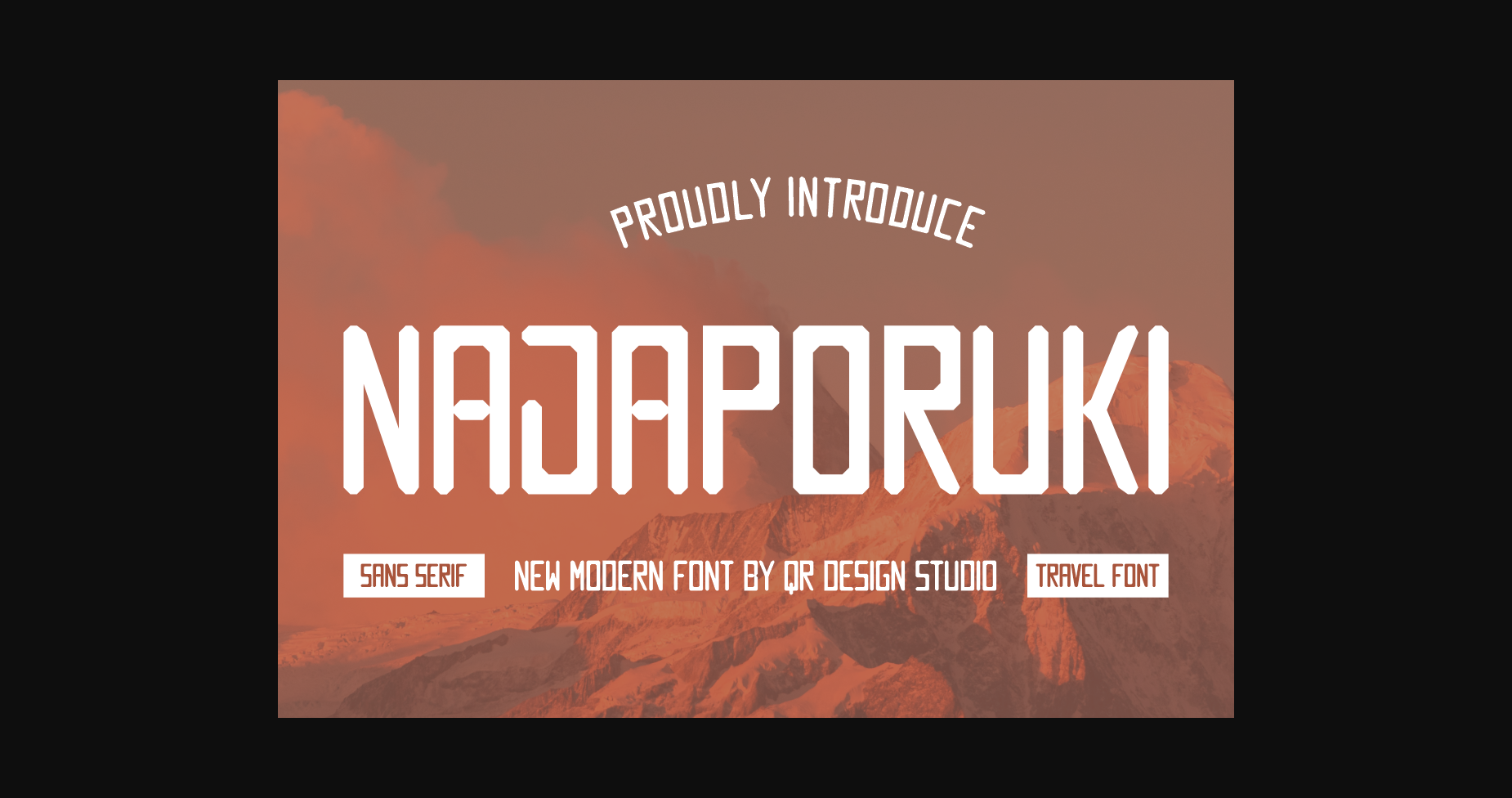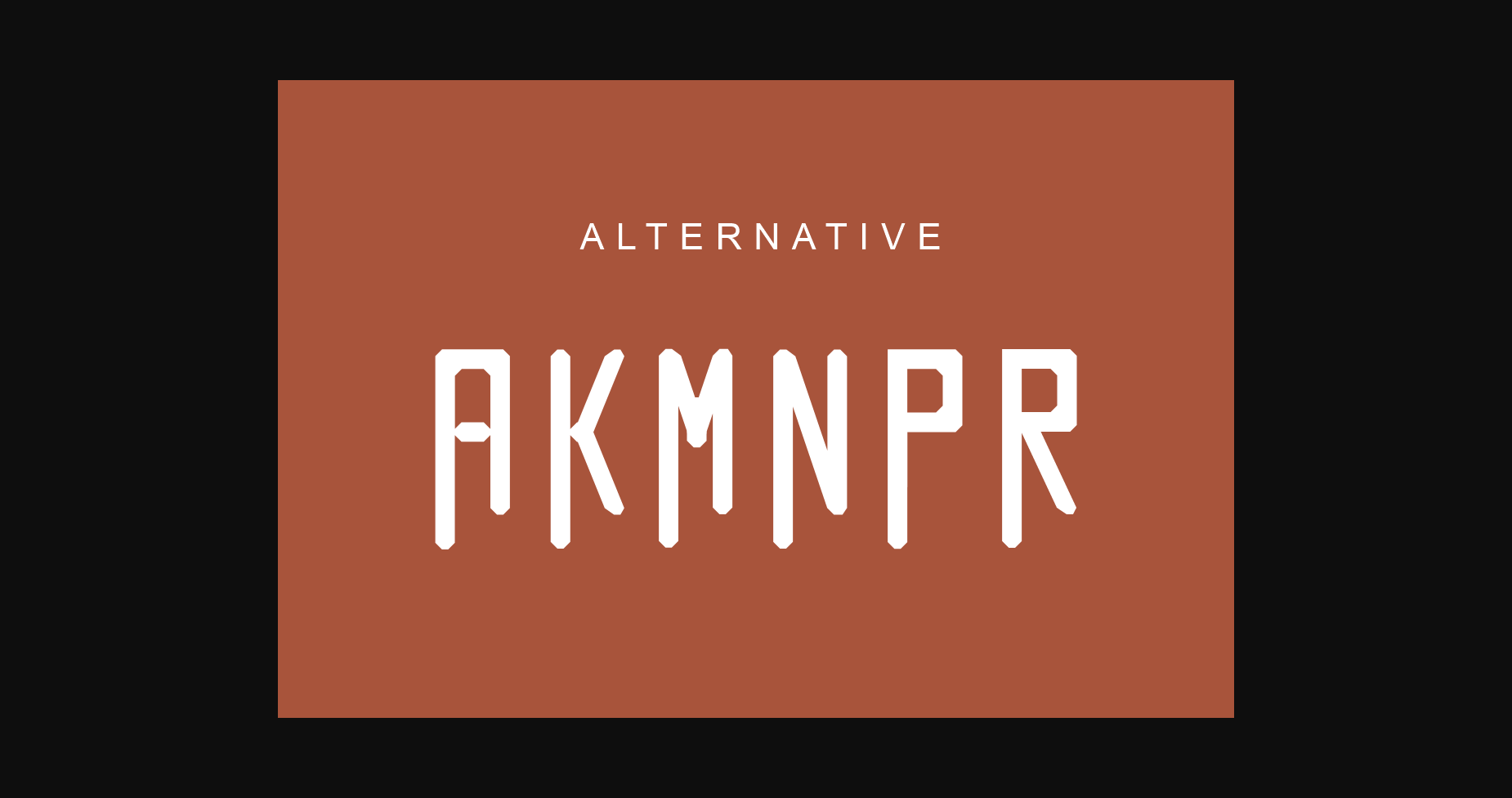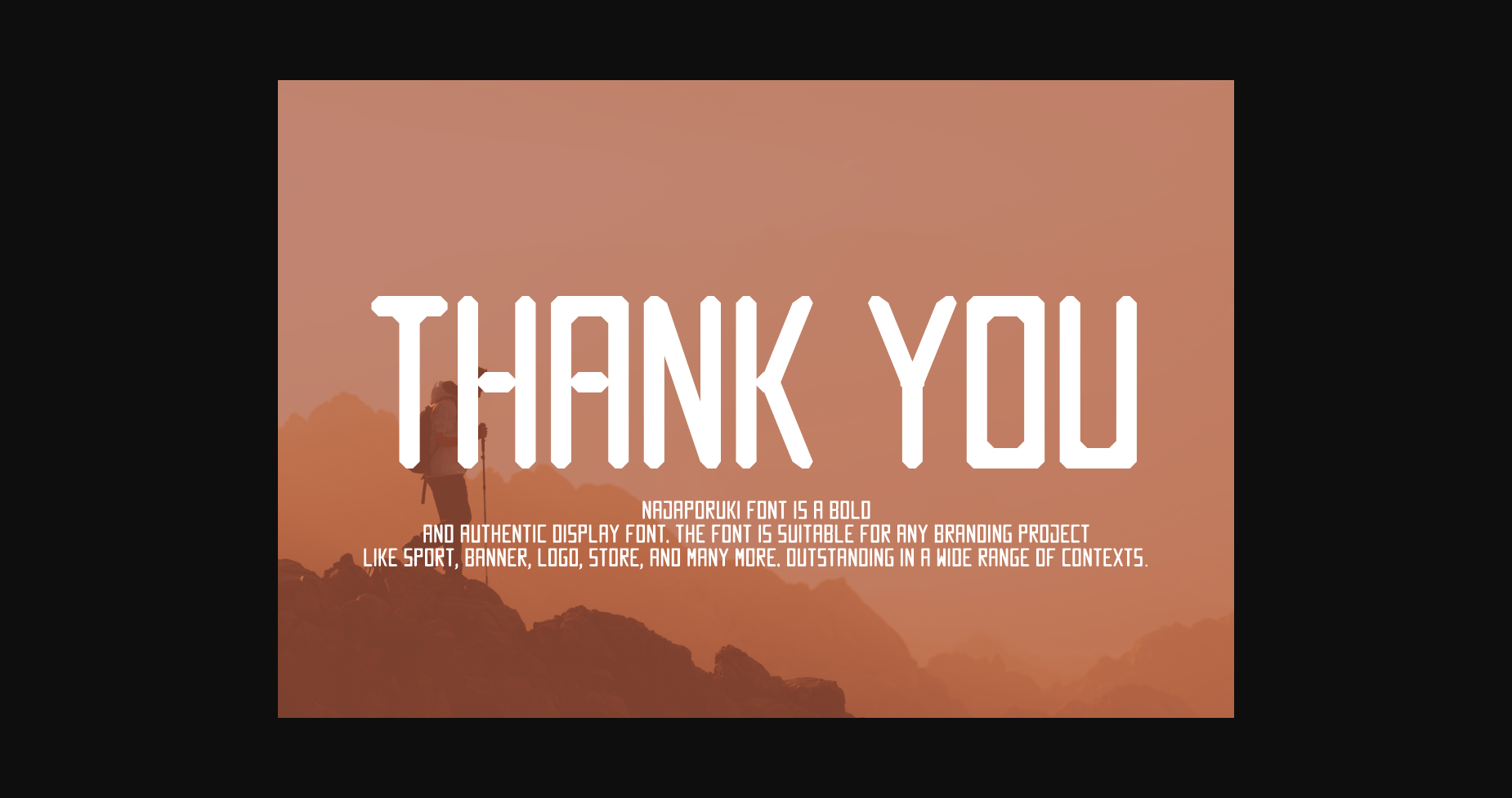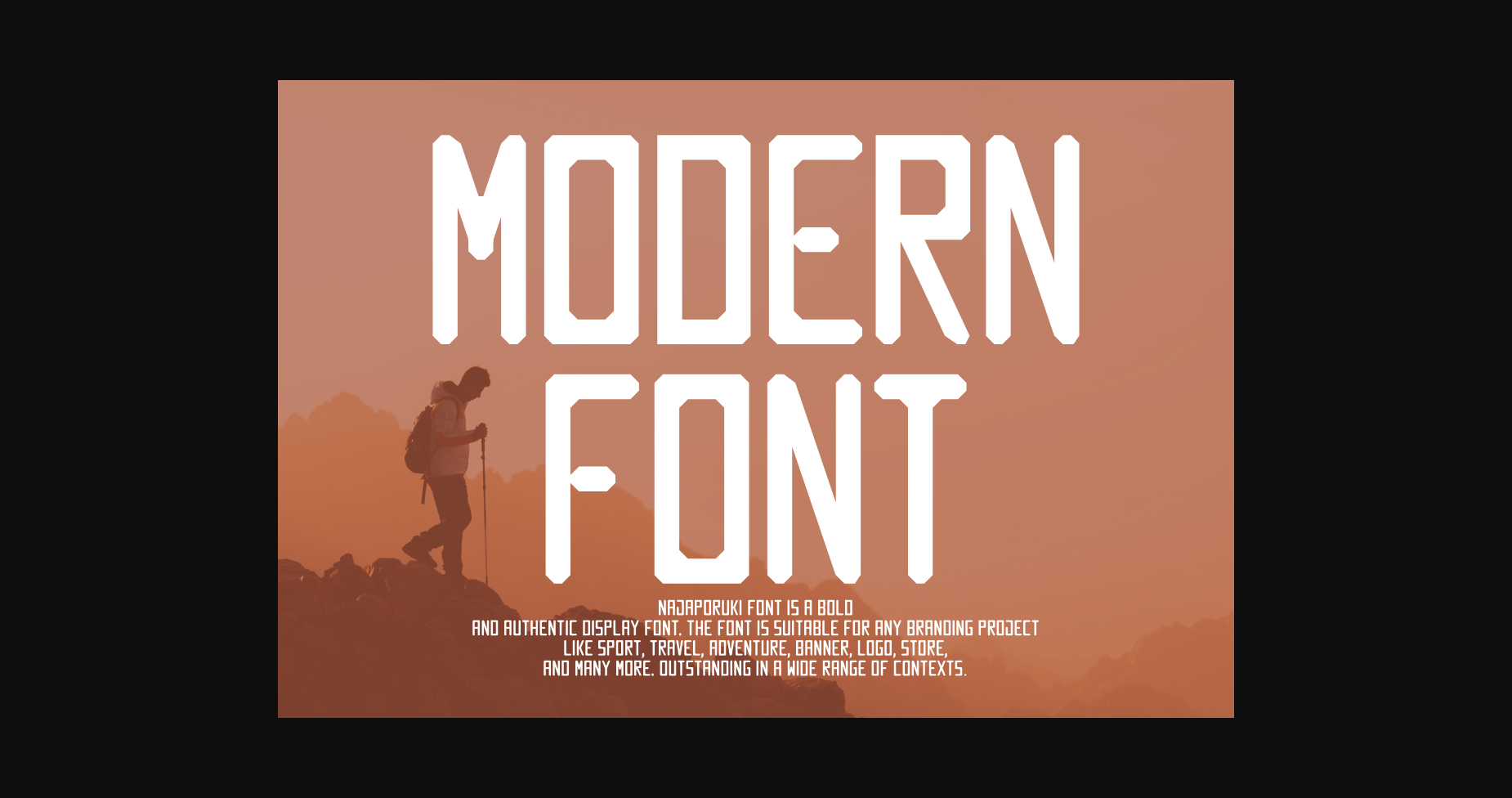
About Najaporuki Font
Najaporuki Font is a bold and authentic display font.
The font is suitable for any branding project like logo, travel, sport, and many more.